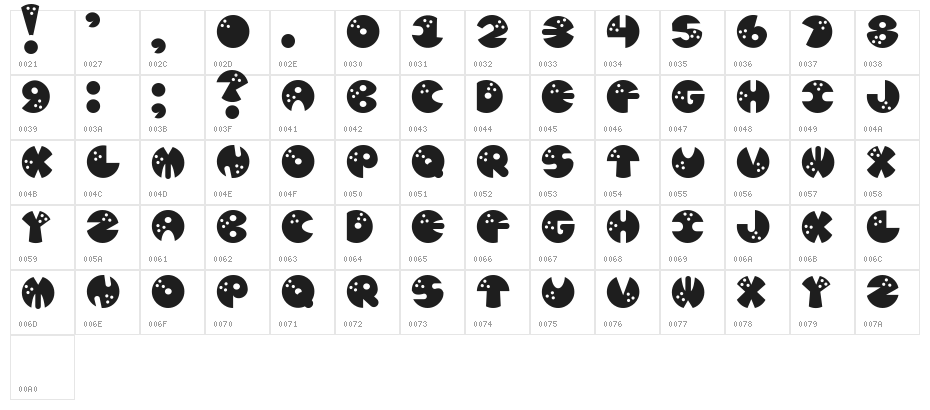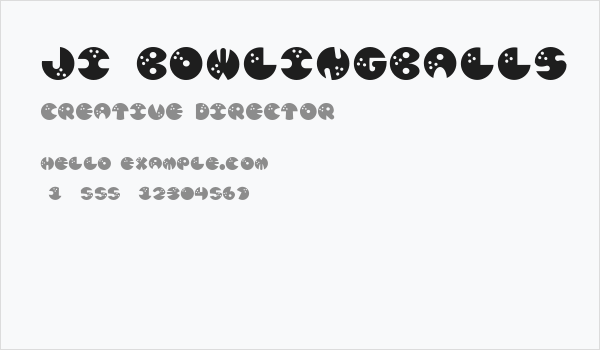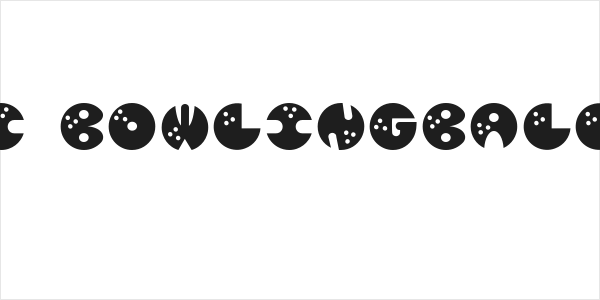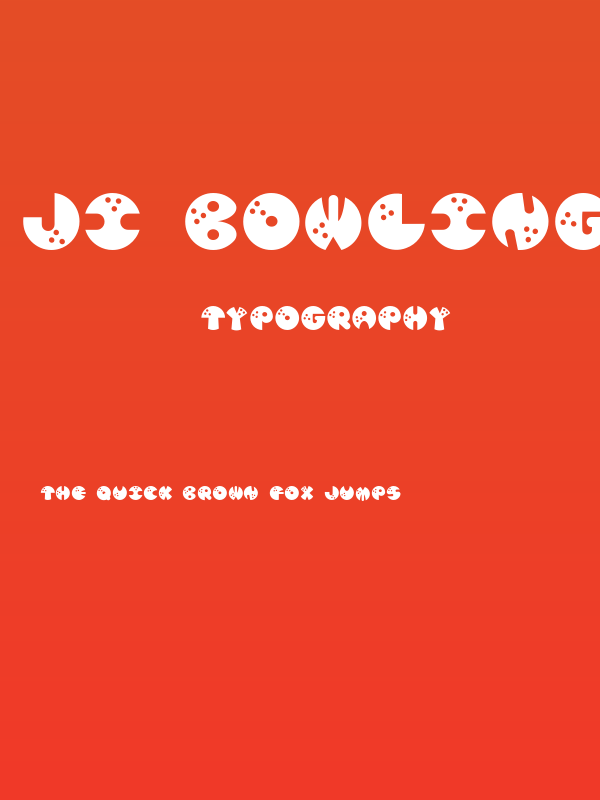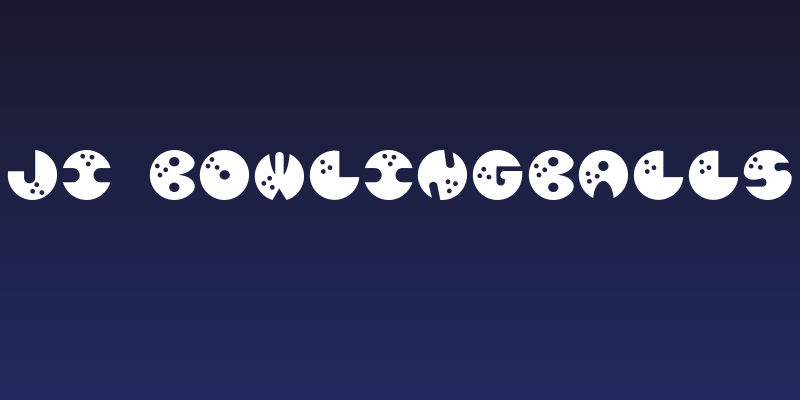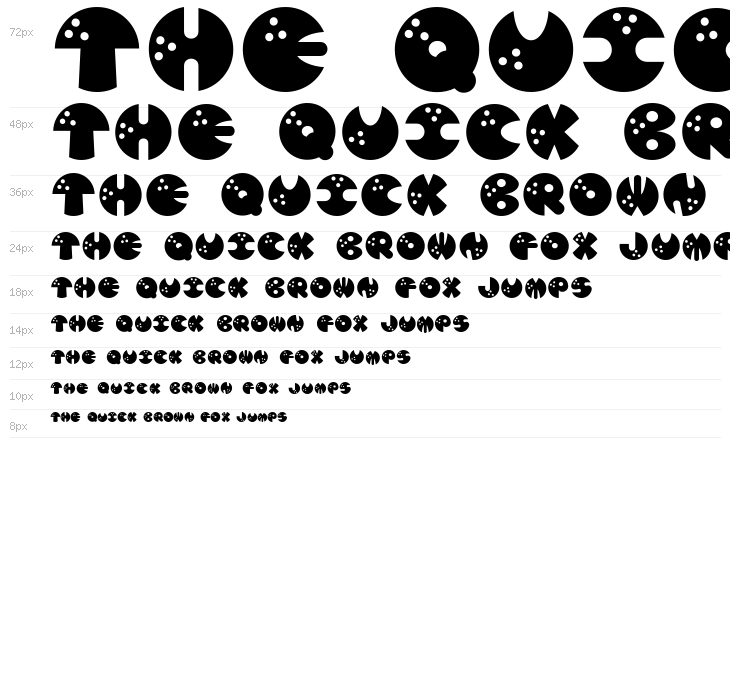
JI BowlingBalls Font
JI BowlingBalls Description
This playful and bold font is inspired by the shape of bowling balls, featuring circular forms with cut-out sections and dot patterns reminiscent of finger holes. Each character is designed with a unique, rounded silhouette that adds a fun and dynamic feel. The font is highly decorative, making it ideal for projects that require a touch of whimsy and creativity. Its boldness ensures strong visibility, while the distinctive design elements make it stand out in any setting.
| Overall Style | Playful, Fun, Decorative |
| Proposed Projects | Ideal for sports-themed posters, children's book covers, playful branding, and event invitations. |